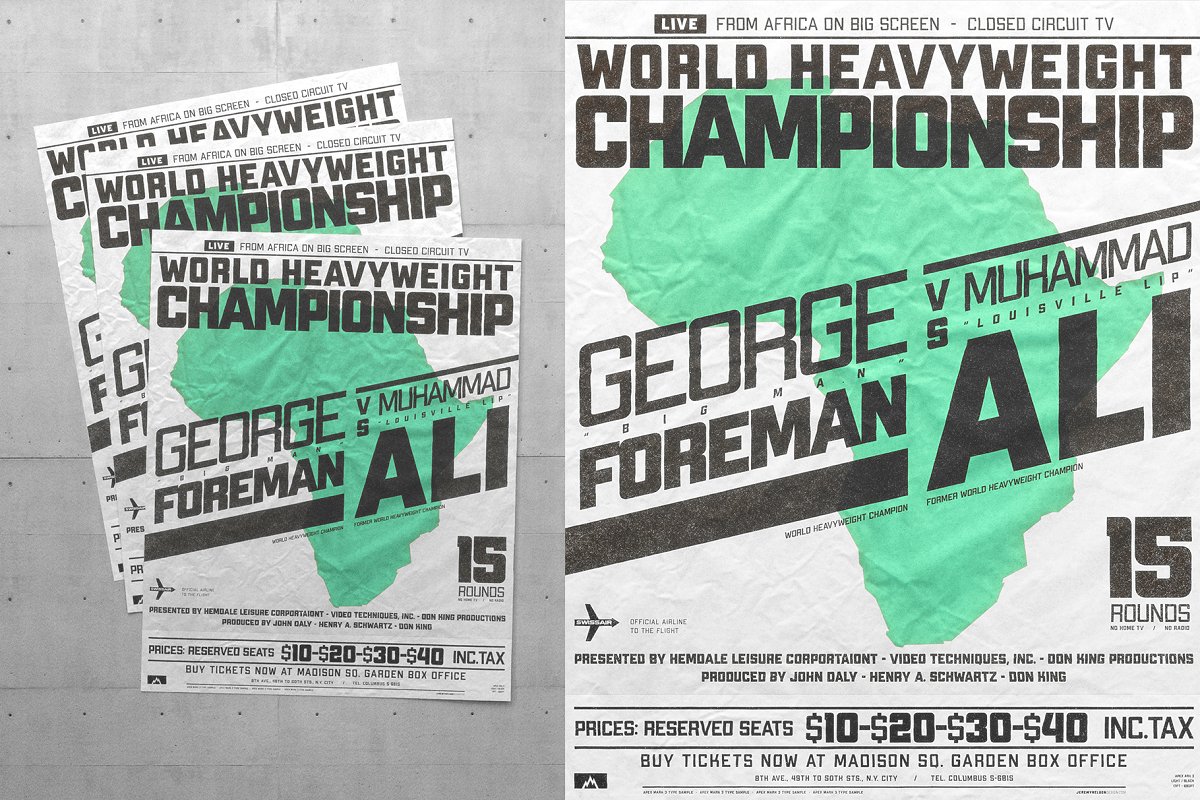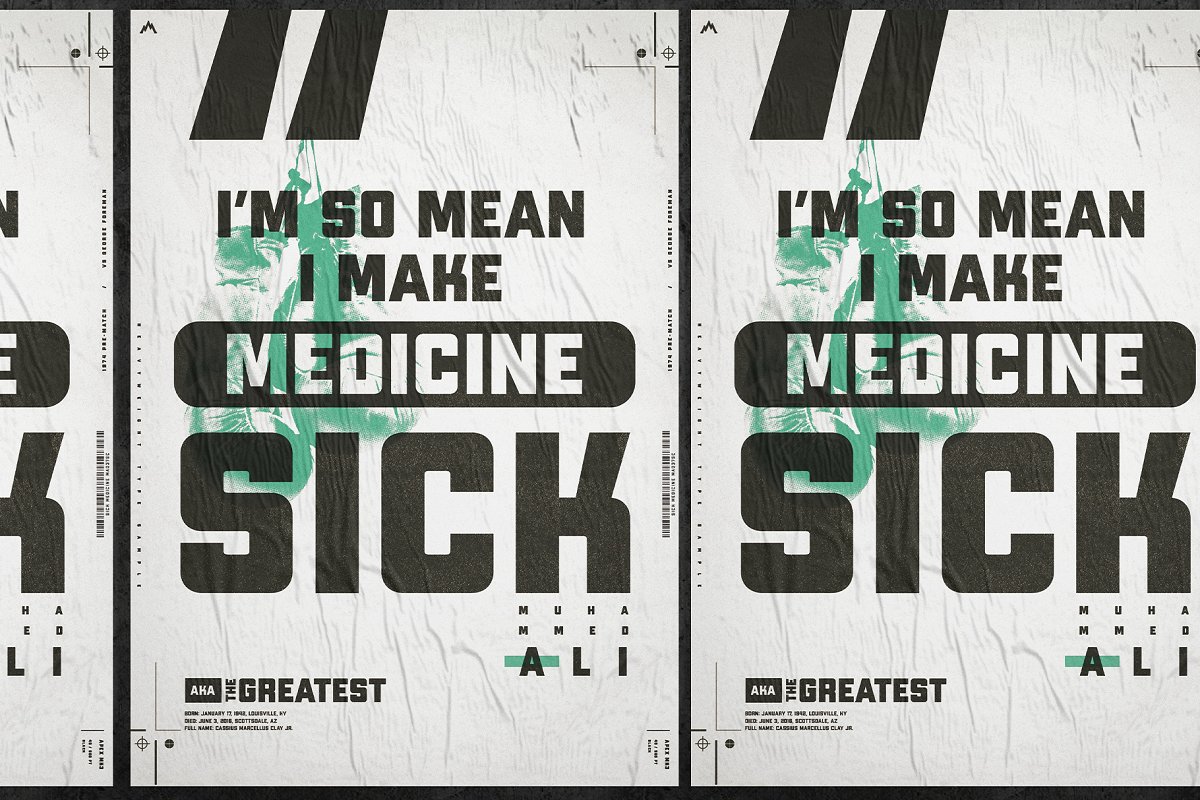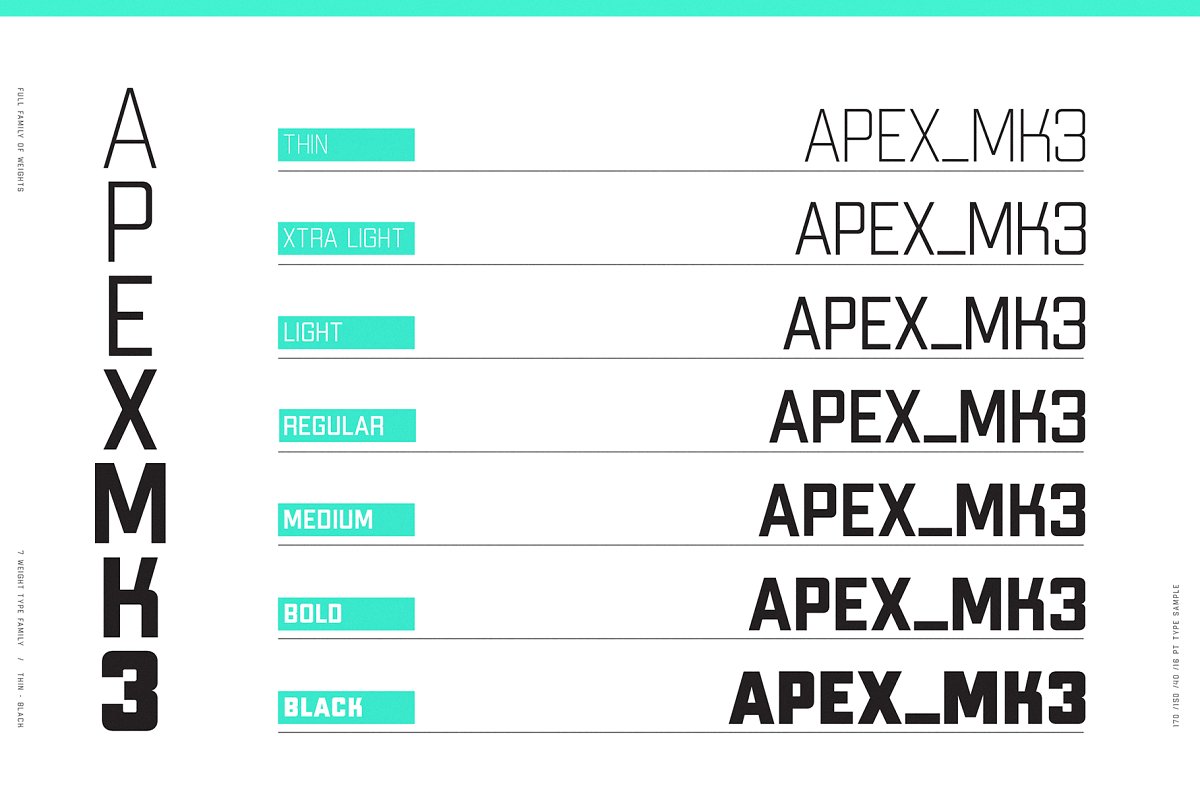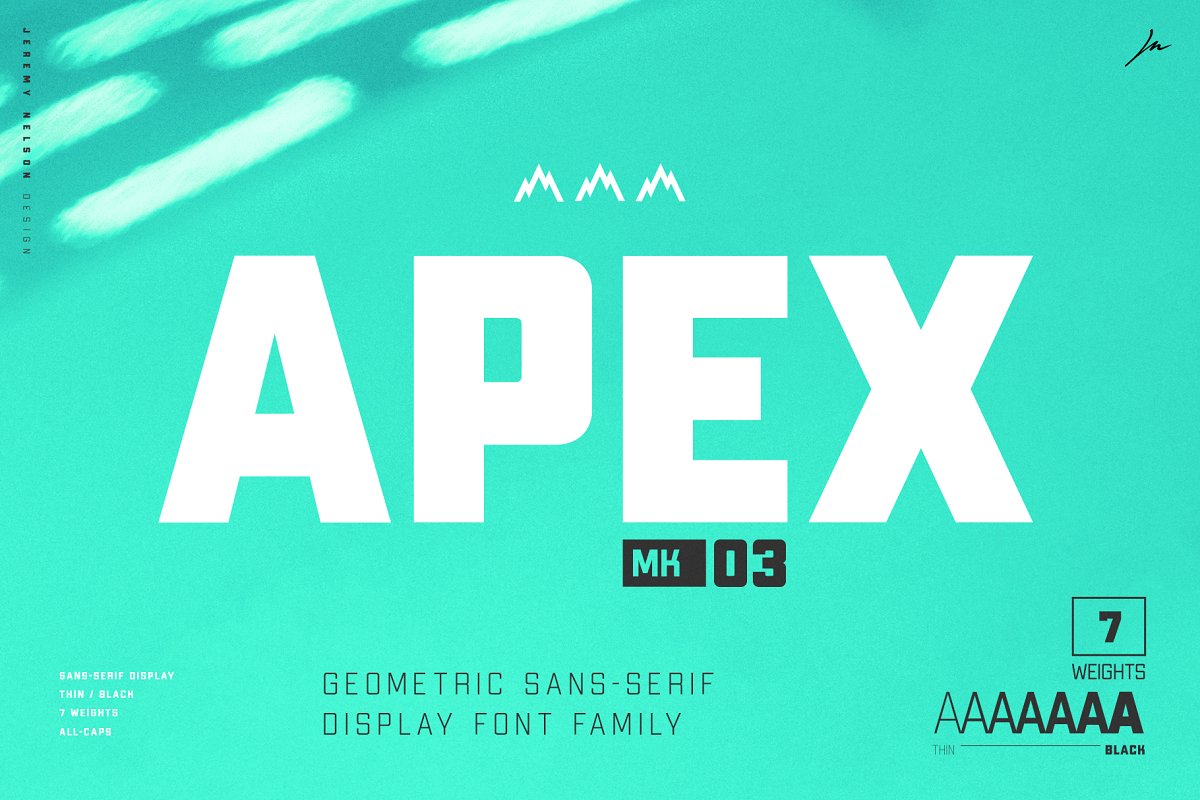
Apex Mk3 Font Family – Free Demo
Hello friend. This is a display style sans serif typeface. Sans serif and condensed, human despite everything, it will find its place in your most exciting projects. Introducing Apex Mk3 Font Family! A robust display typeface, Apex Mark 3 takes inspiration from classic geometric forms, sans serifs, and workhorse athletic block type. Simplicity of form gives it flexibility for a broad range of uses, while its geometric frame provides the foundation for its decisive tone.